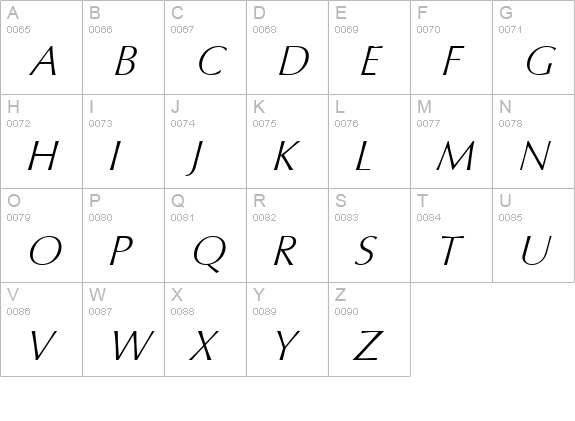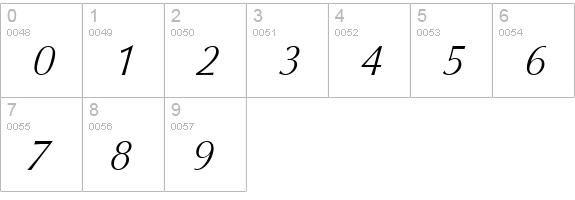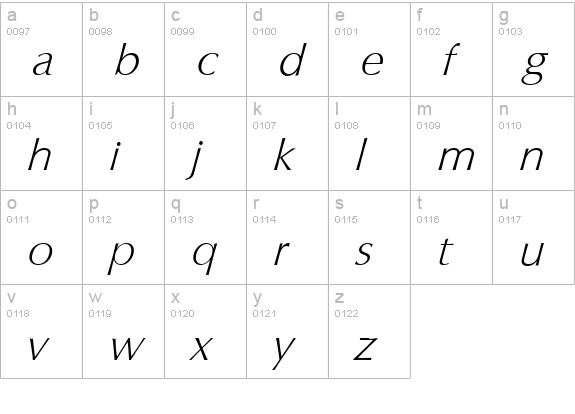
ColumbiaSerial-Xlight-Italic is a distinctive, italic variant in the ColumbiaSerial typeface family \xE2\x80\x94 well suited to design and typography projects.
ColumbiaSerial-Xlight-Italic is a sleek and elegant font that exudes sophistication and modernity. Its delicate curves and slanted design add a touch of flair to any project, making it perfect for a wide range of applications. This font is ideal for adding a touch of style to your print materials, websites, and digital designs. And the best part? ColumbiaSerial-Xlight-Italic is available for free download at FontsMarket.com. Take advantage of this amazing offer and elevate your designs with this stunning font today!